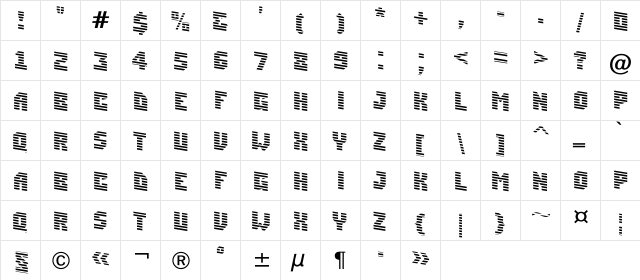
a_SimplerMrnDn Regular
Design Context for a_SimplerMrnDn Typeface
a_SimplerMrnDn is a composed and adaptable typeface that performs quietly and consistently across a wide range of design contexts.